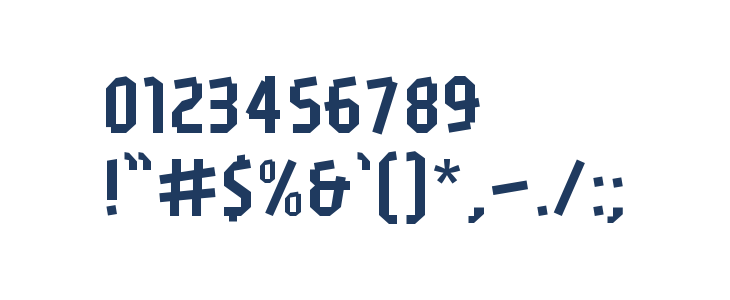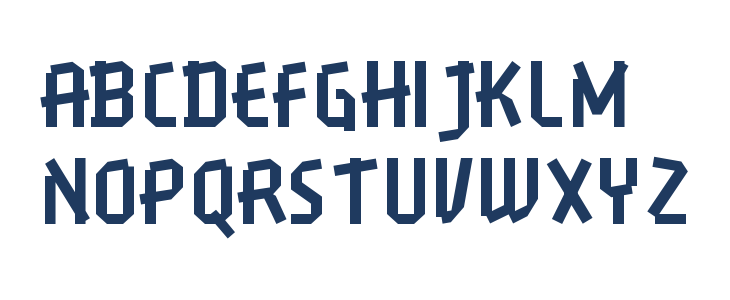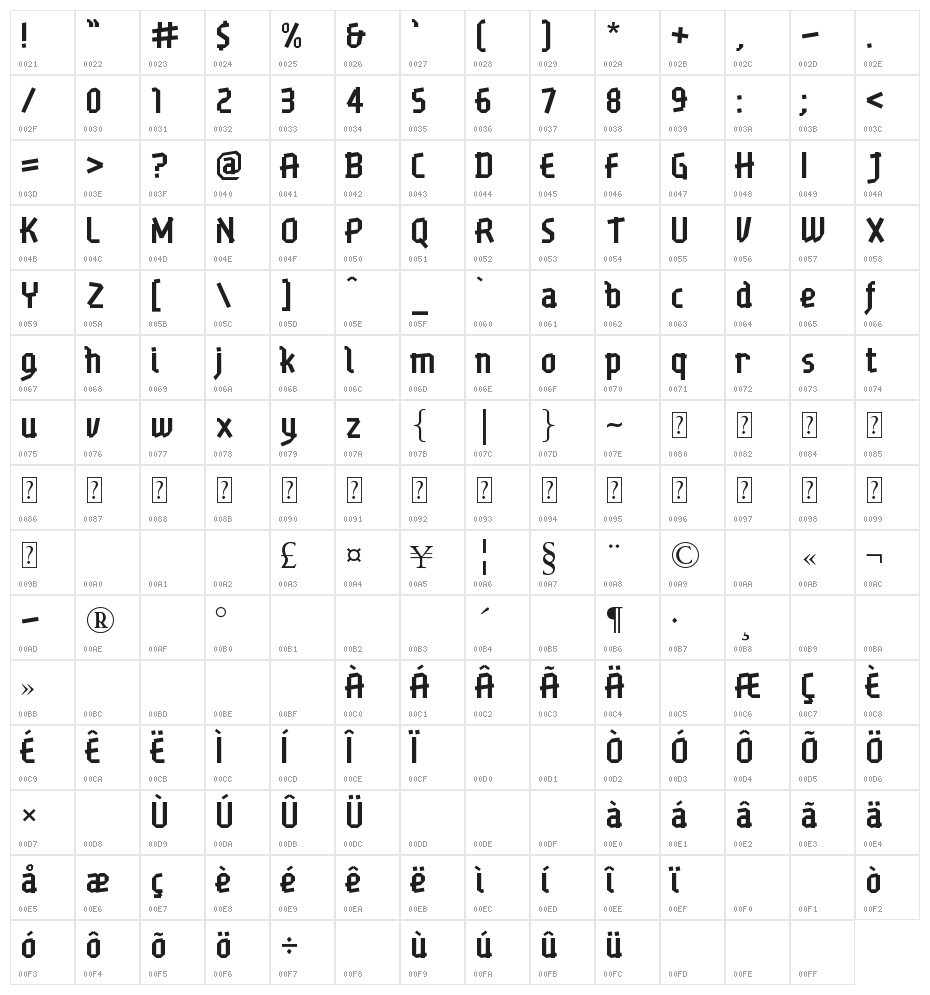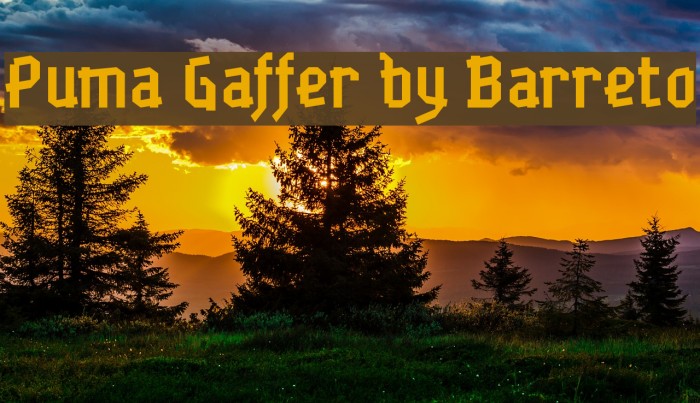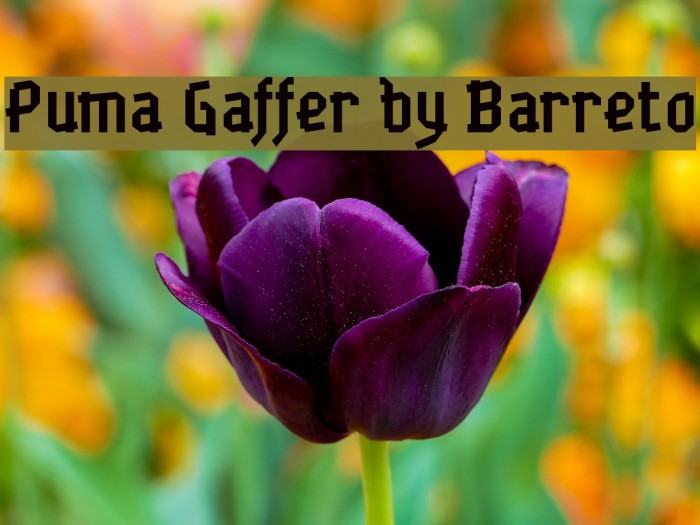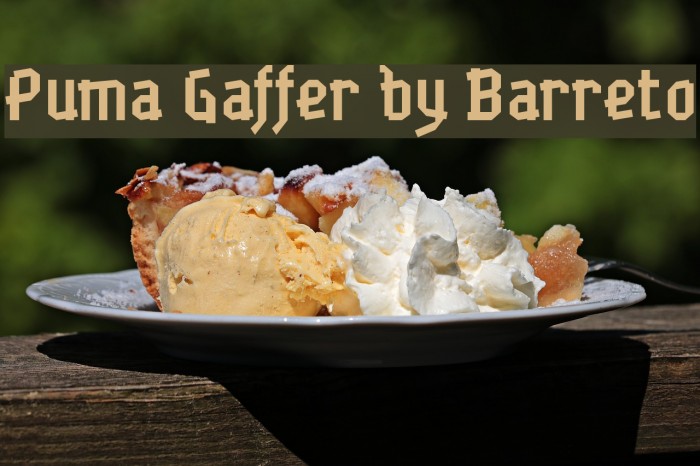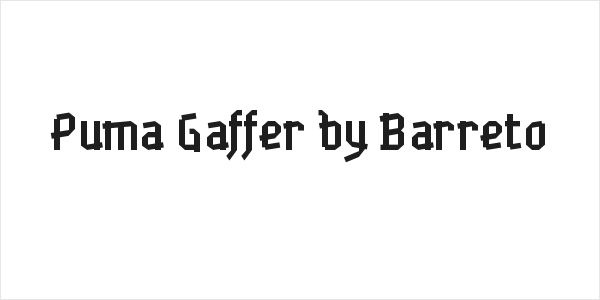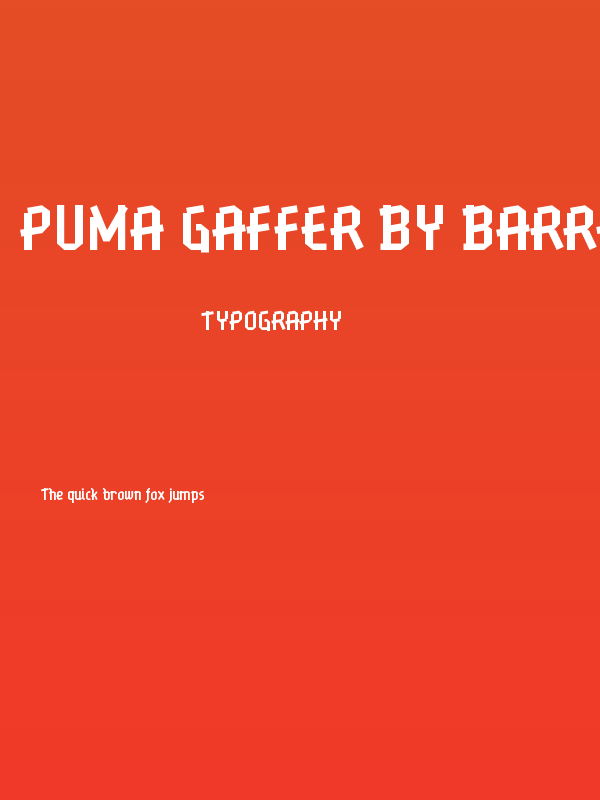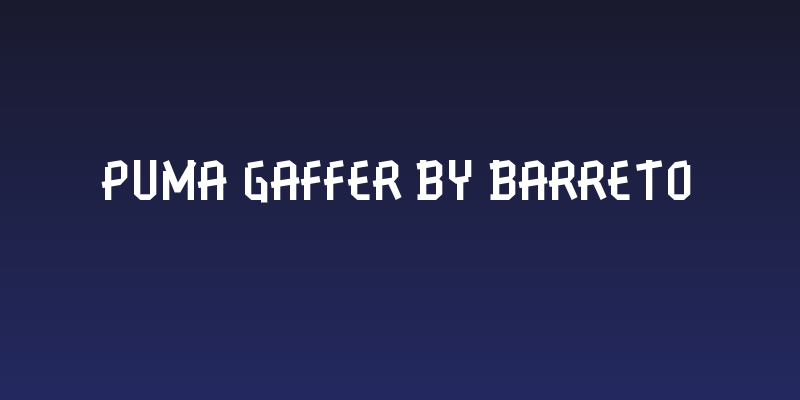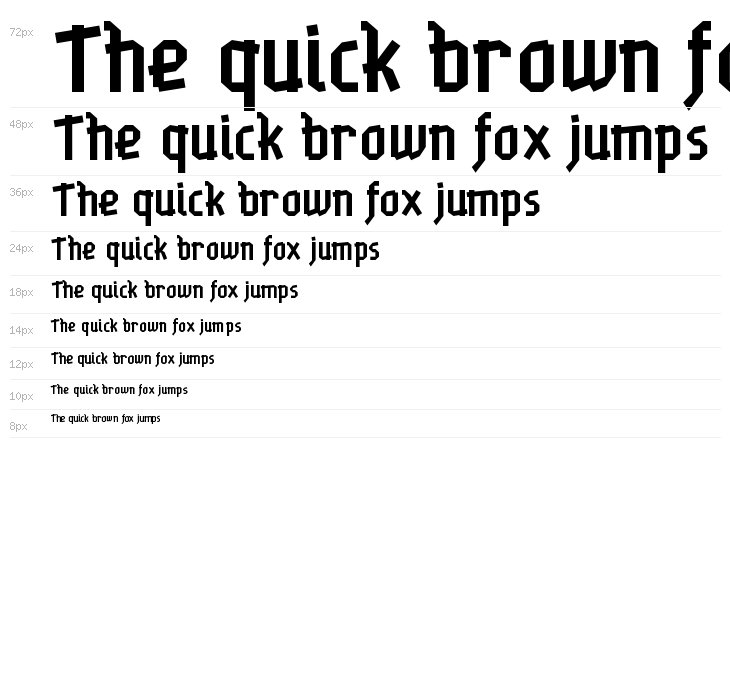
Puma Gaffer by Barreto Font
Puma Gaffer by Barreto Description
This font features a bold, angular design with a distinct geometric style. The characters are constructed with sharp edges and straight lines, giving it a modern and edgy appearance. The uppercase and lowercase letters maintain a consistent height, while the numerals and special characters follow the same angular theme. The font's unique structure makes it stand out, with a strong presence that commands attention. Its design is reminiscent of digital or futuristic aesthetics, making it suitable for projects that require a bold and modern look.
| Proposed Projects | Ideal for branding, posters, video game graphics, and any project needing a futuristic or digital aesthetic. |